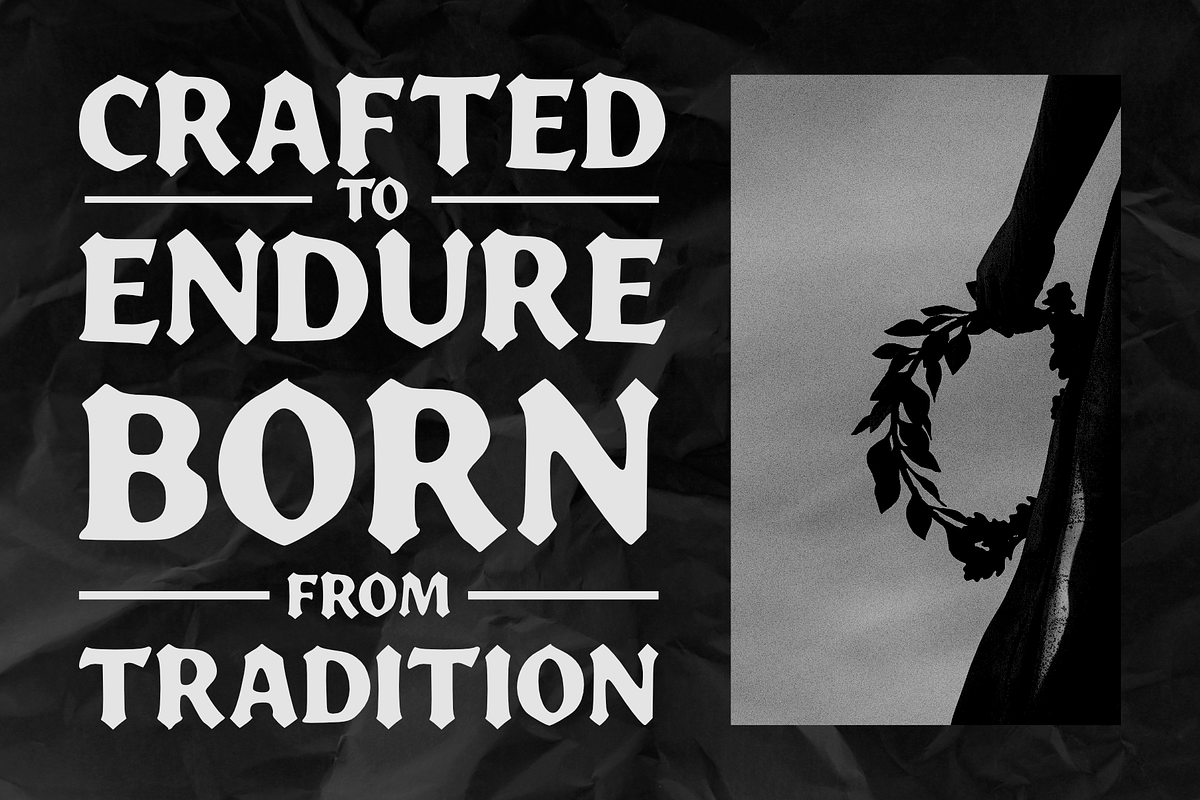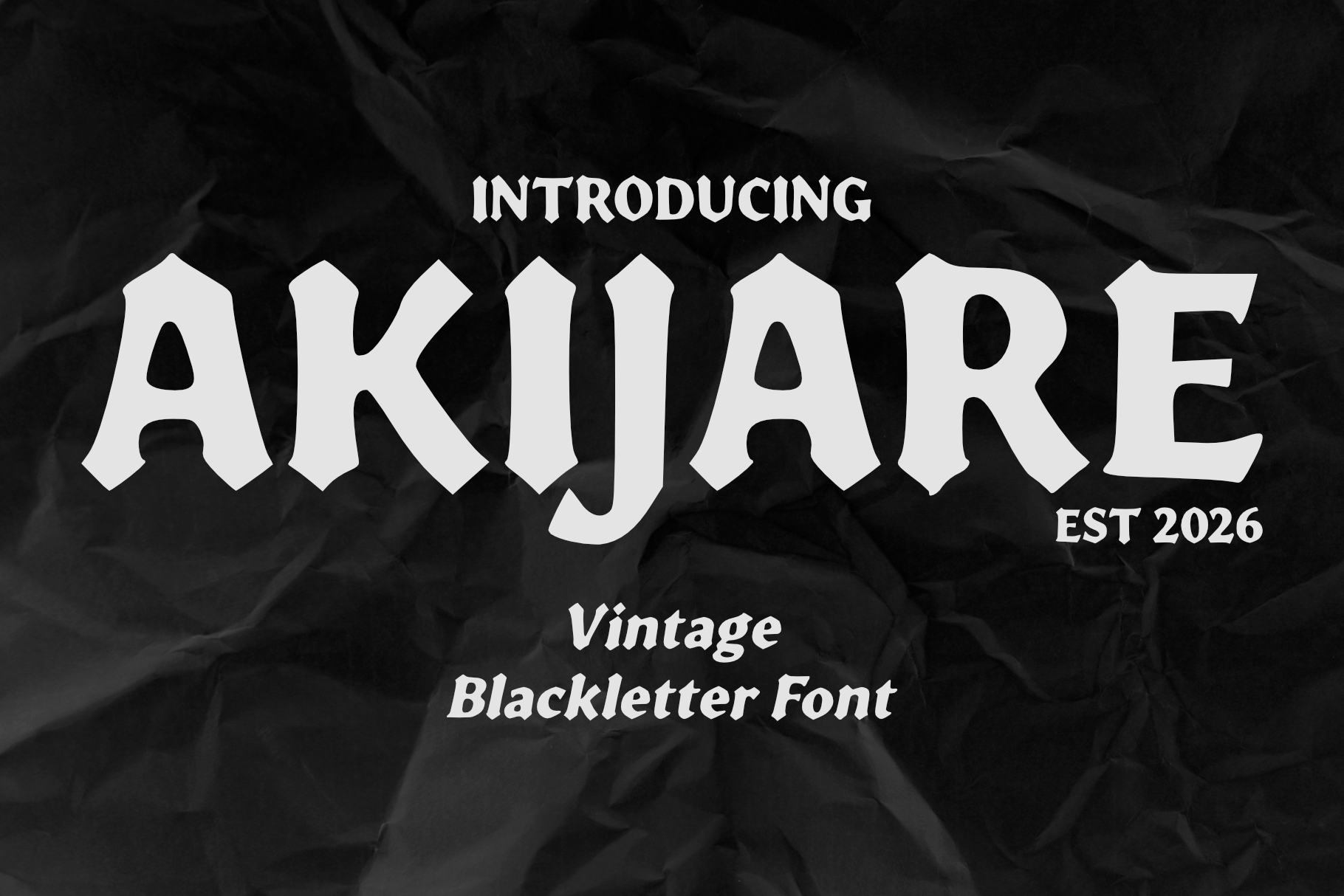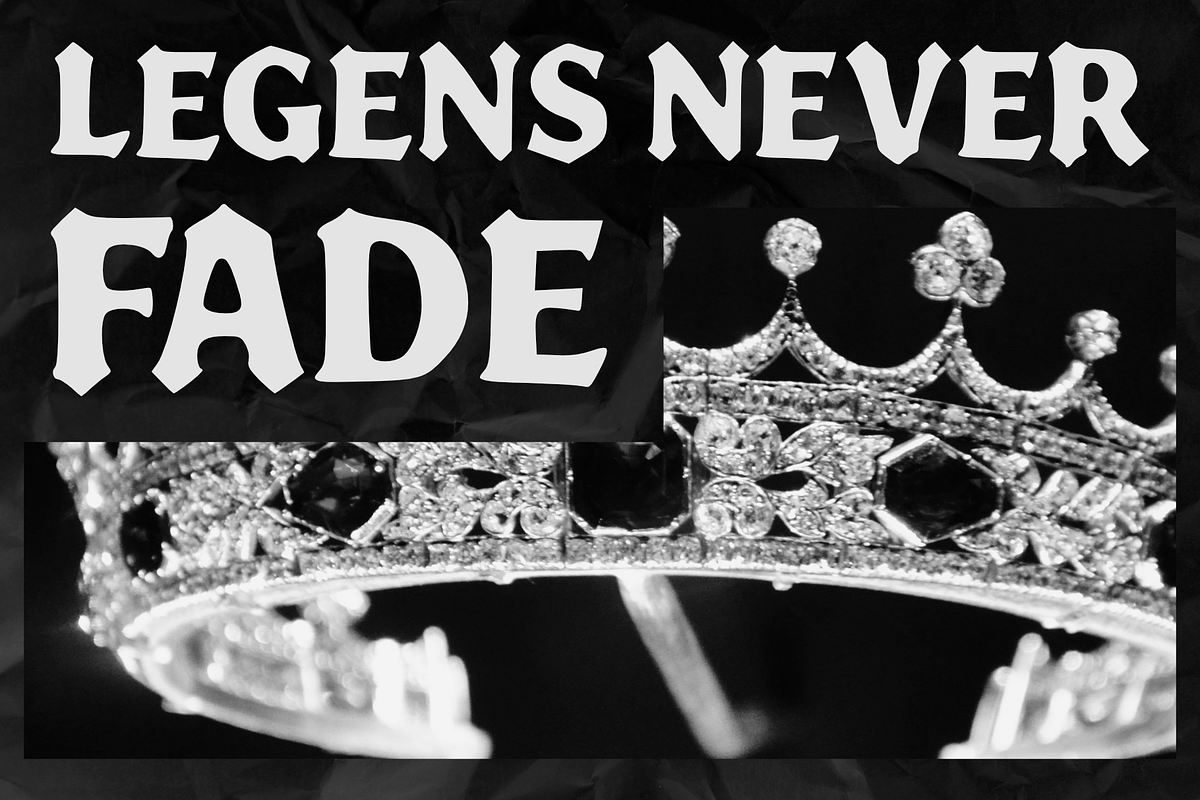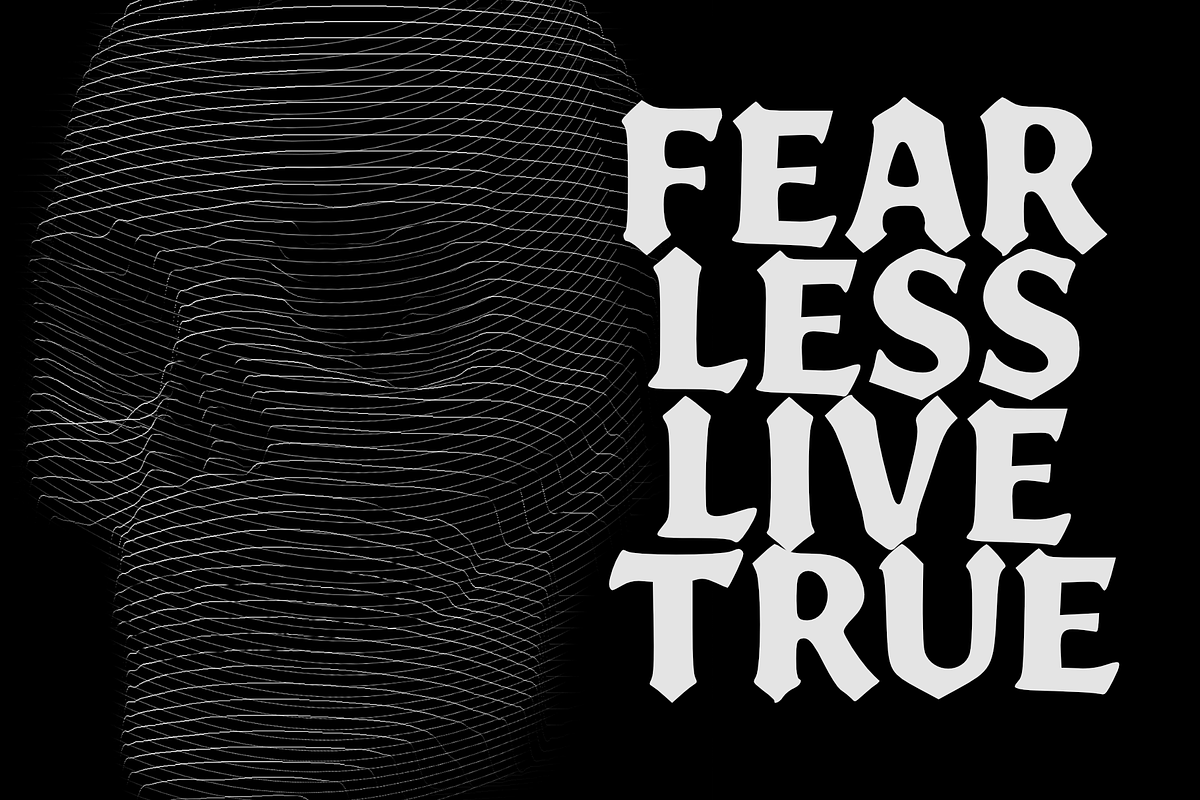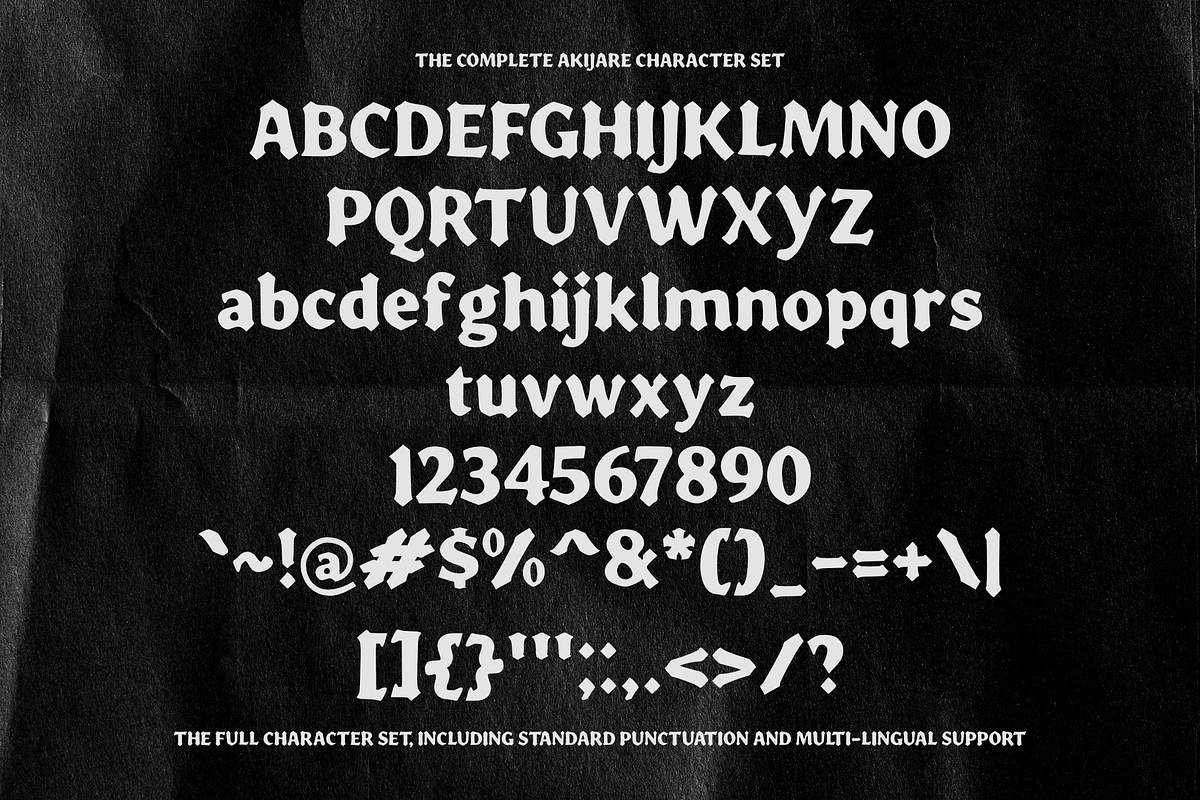
Akijare Vintage Blackletter Font
Akijare is a bold vintage blackletter font that combines classic Gothic influences with a clean, modern touch. Designed with strong strokes, sharp angles, and distinctive letterforms, this typeface delivers a timeless medieval aesthetic while maintaining excellent readability. Perfect for branding, logos, apparel, posters, packaging, album covers, tattoos, merchandise, book covers, gaming titles, and any project that demands a bold, historic, and authentic character. Whether you're creating retro-inspired designs or dark, dramatic visuals, Akijare adds a powerful and memorable presence to every composition.
Regular & Italic